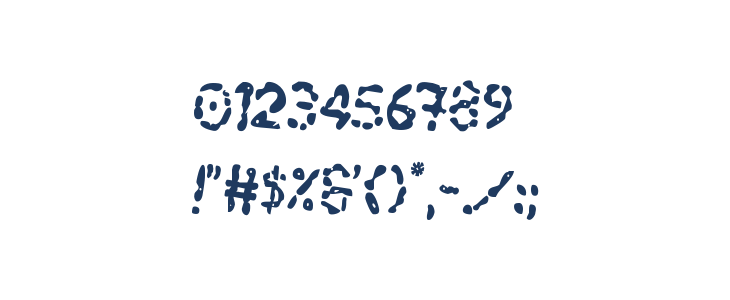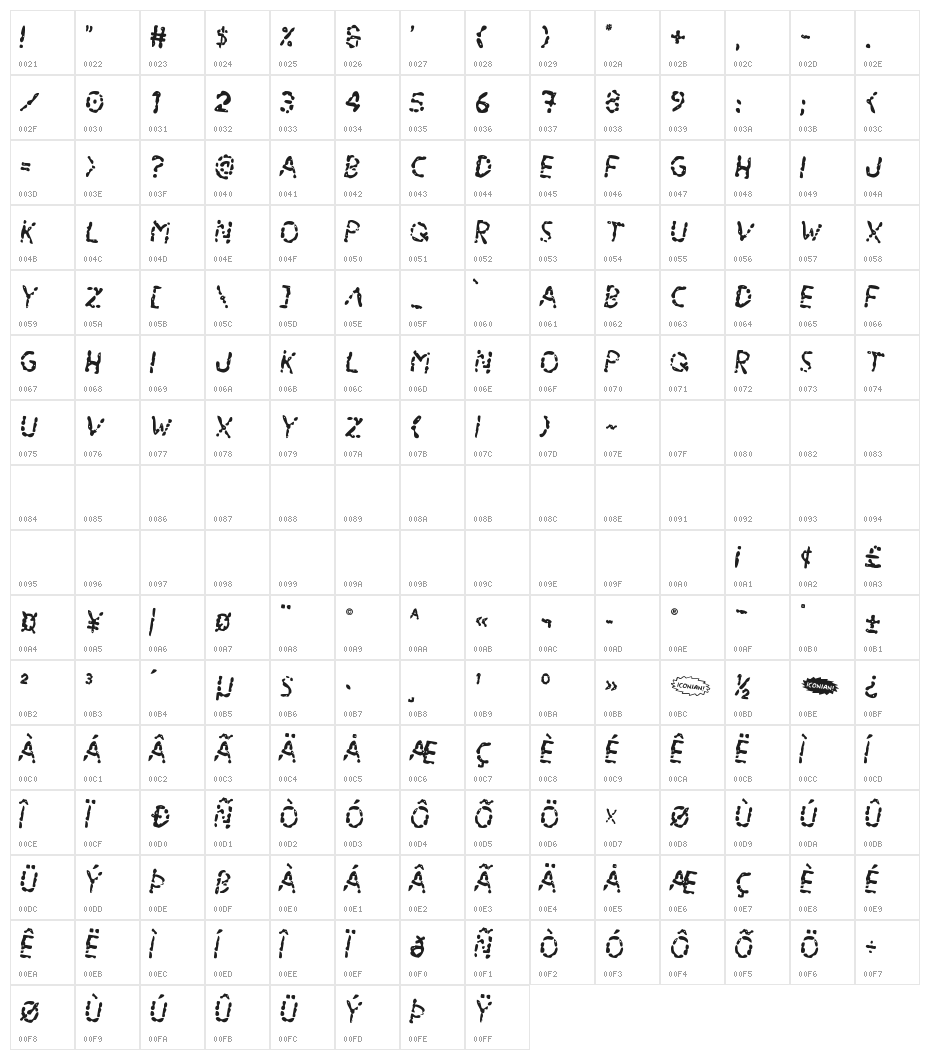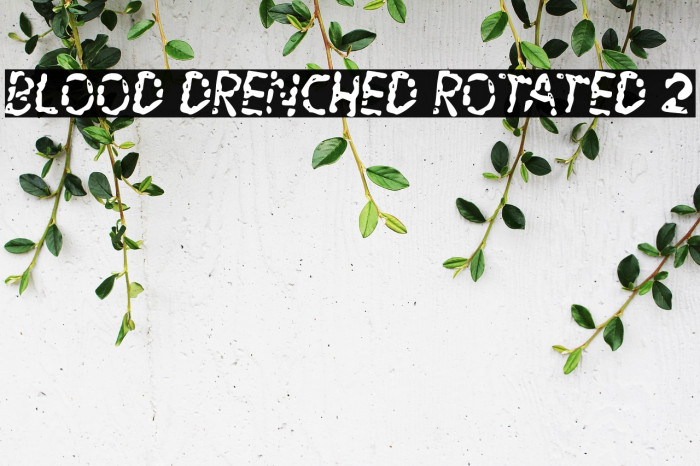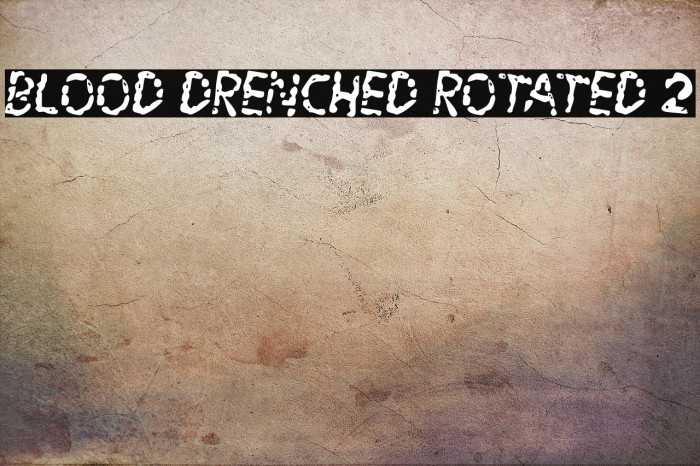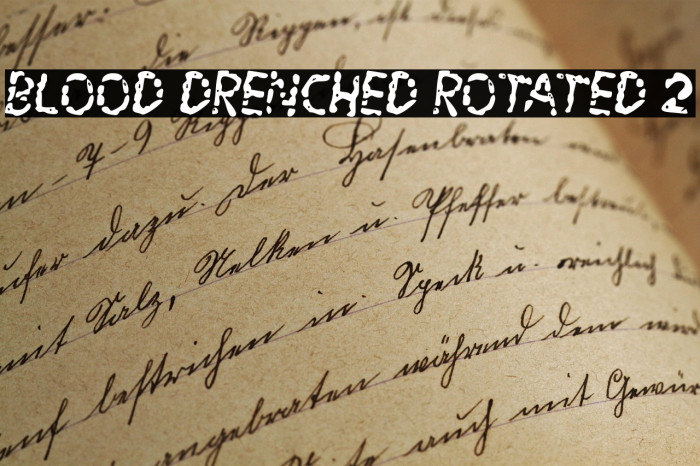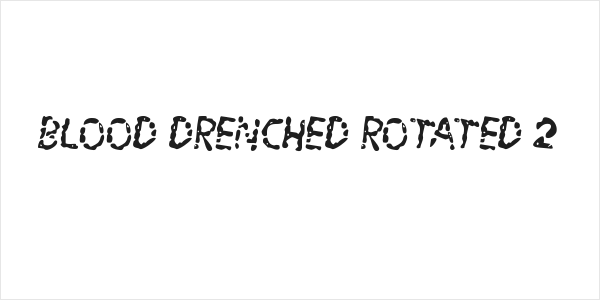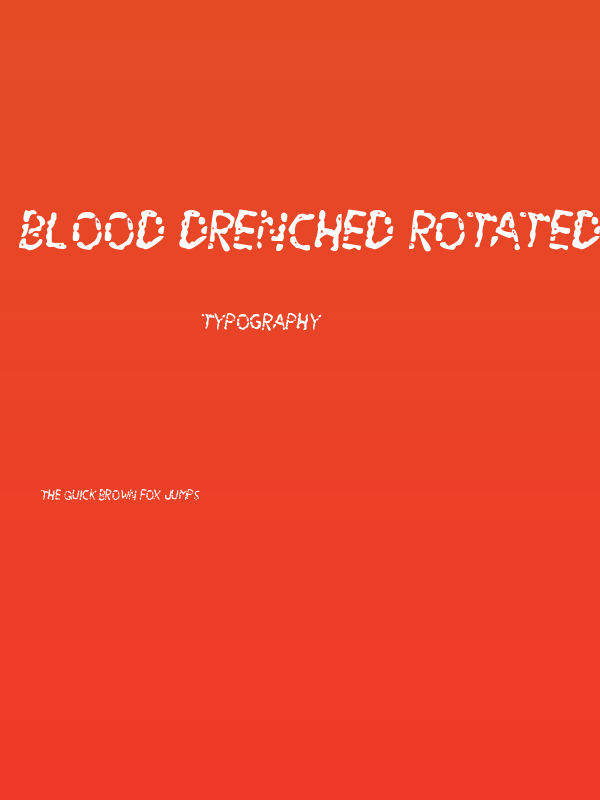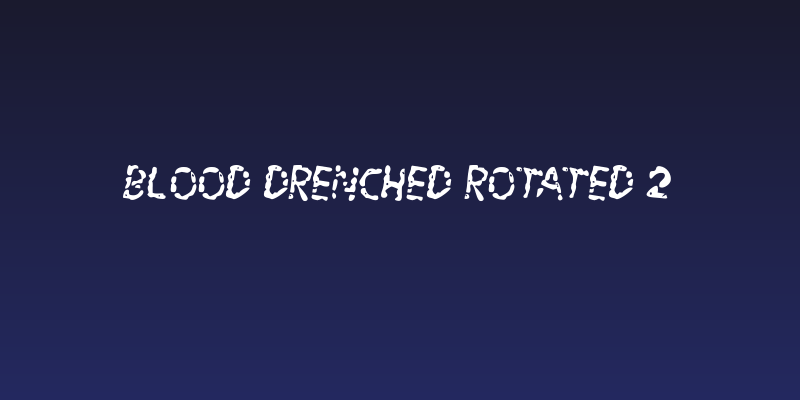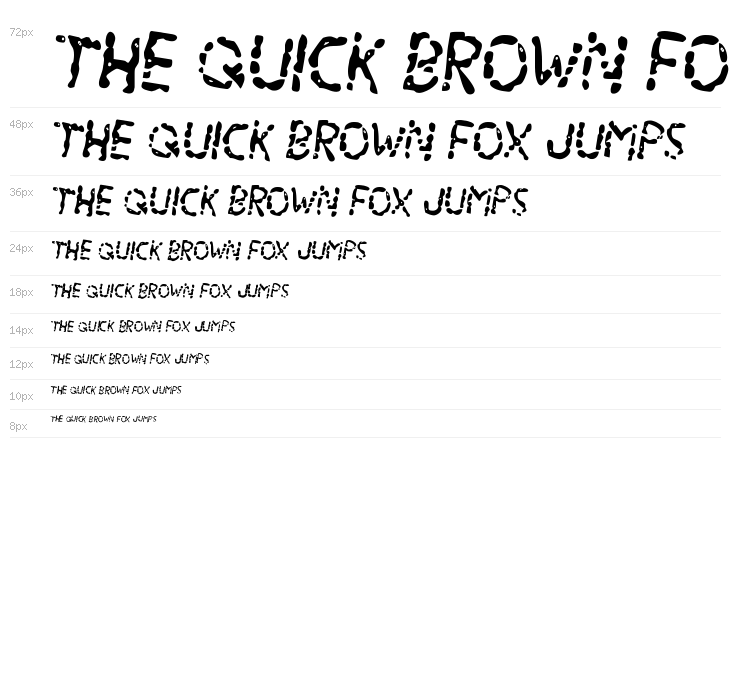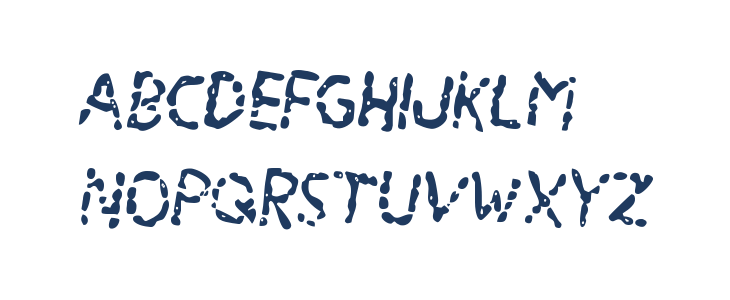
Blood Drenched Rotated 2 Font
Blood Drenched Rotated 2 Description
This font features a unique and eerie design, with characters resembling splatters or droplets, creating a dramatic and unsettling effect. The letters are irregularly shaped, giving an impression of fluidity and chaos, which is accentuated by the uneven distribution of weight across the strokes. The font maintains a consistent theme throughout, with both uppercase and lowercase letters exhibiting the same splattered style. Numbers and special characters follow suit, ensuring a cohesive look. This design is particularly striking and memorable, making it suitable for projects that require a bold and unconventional aesthetic.